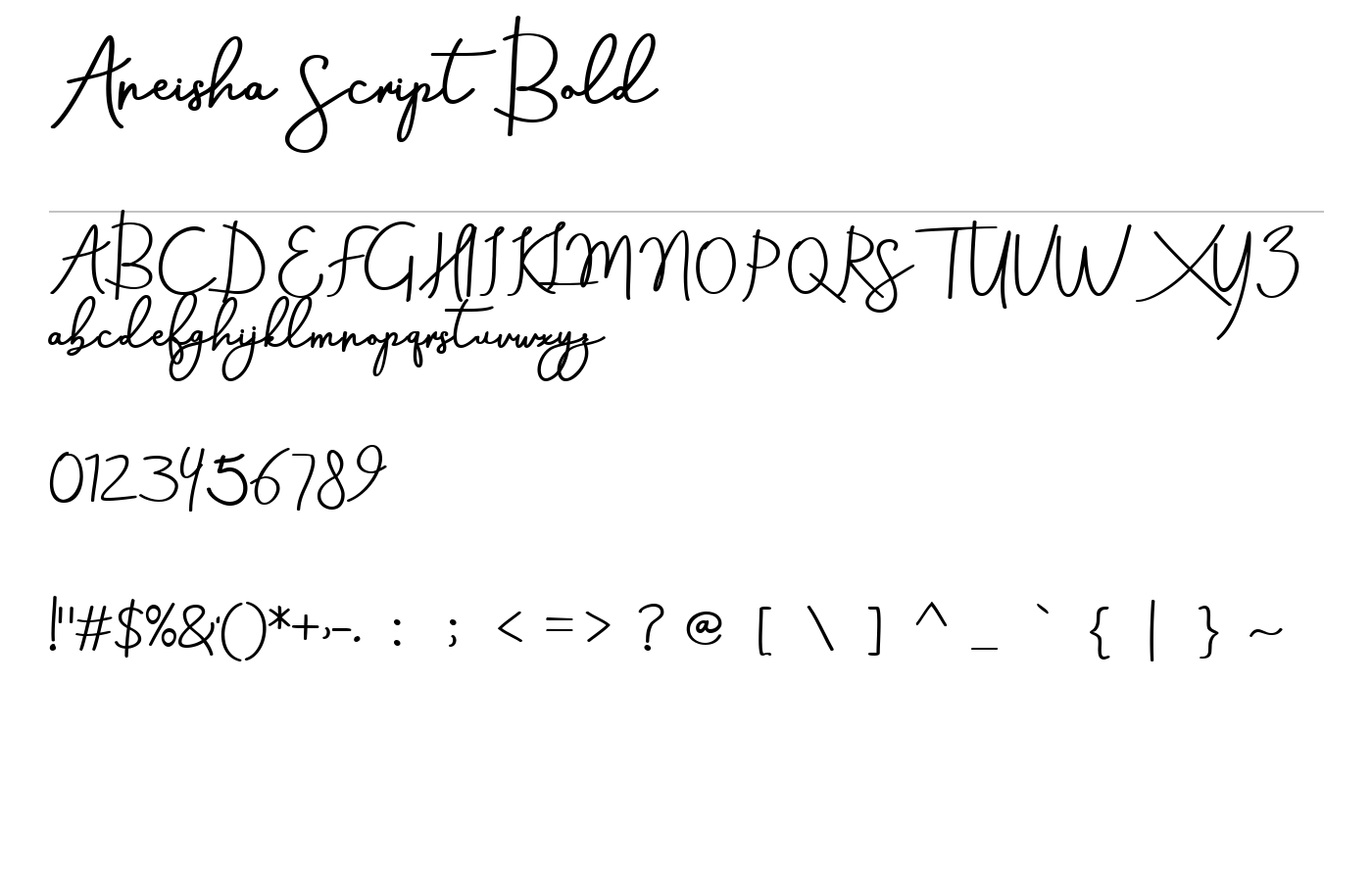
Aneisha Script Bold is a lively and elegant handwritten script font that combines casual charm with refined sophistication. Its tall, slender letterforms and graceful strokes create a personal, artistic feel, making it ideal for branding, invitations, and creative headlines where a touch of individuality and warmth is desired. This font works beautifully in projects that aim to convey creativity, friendliness, and a handwritten authenticity.
| Designer | Mrletters (Muhammad Rizal) |